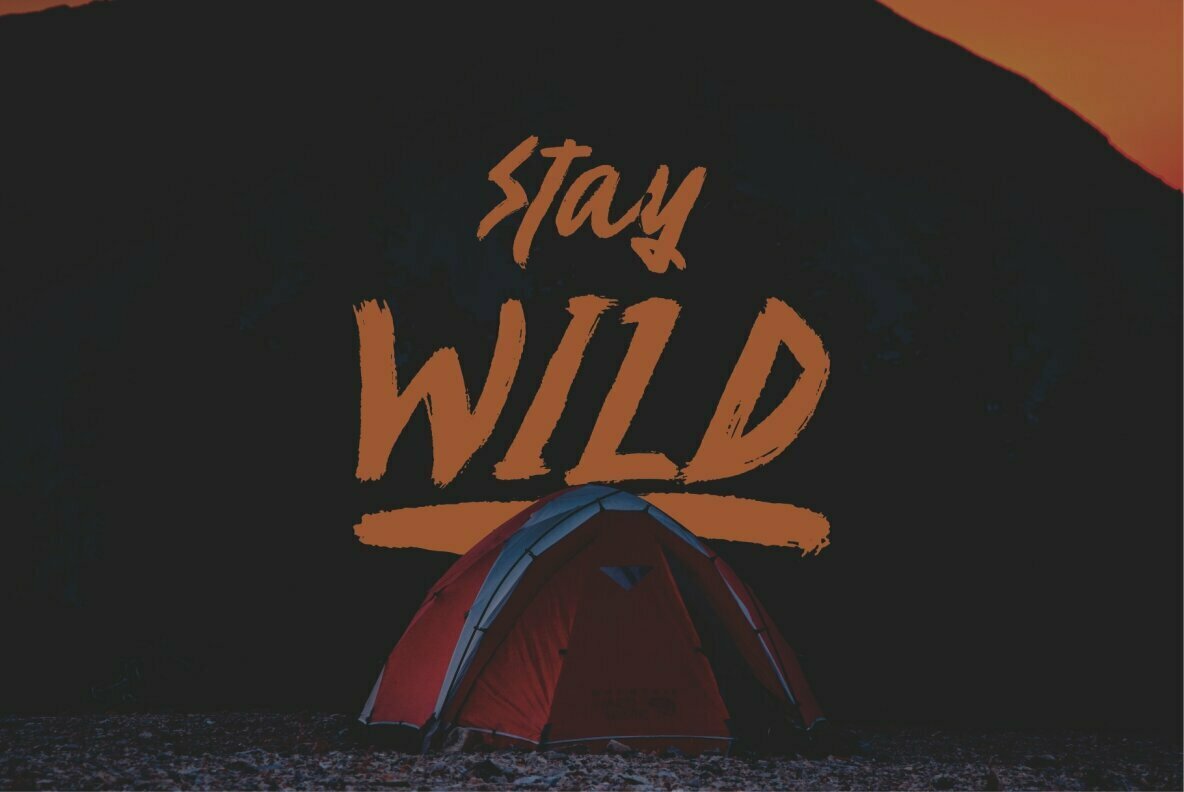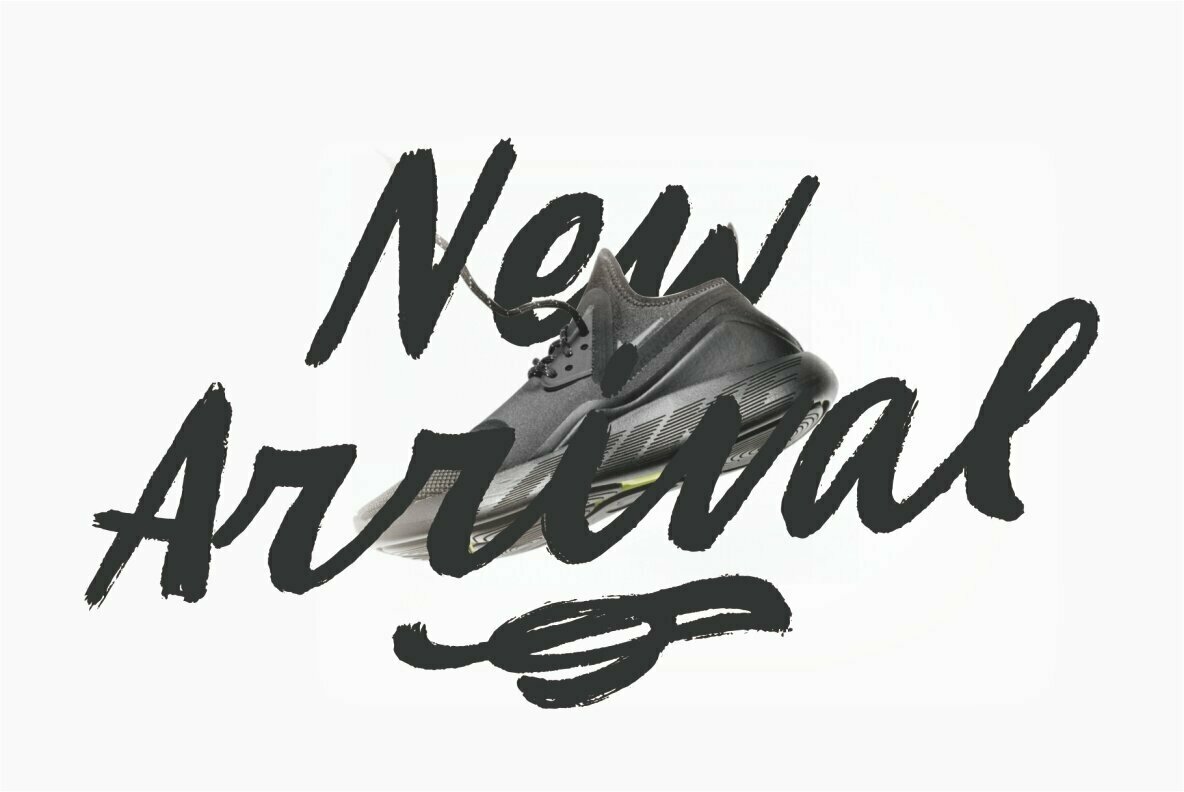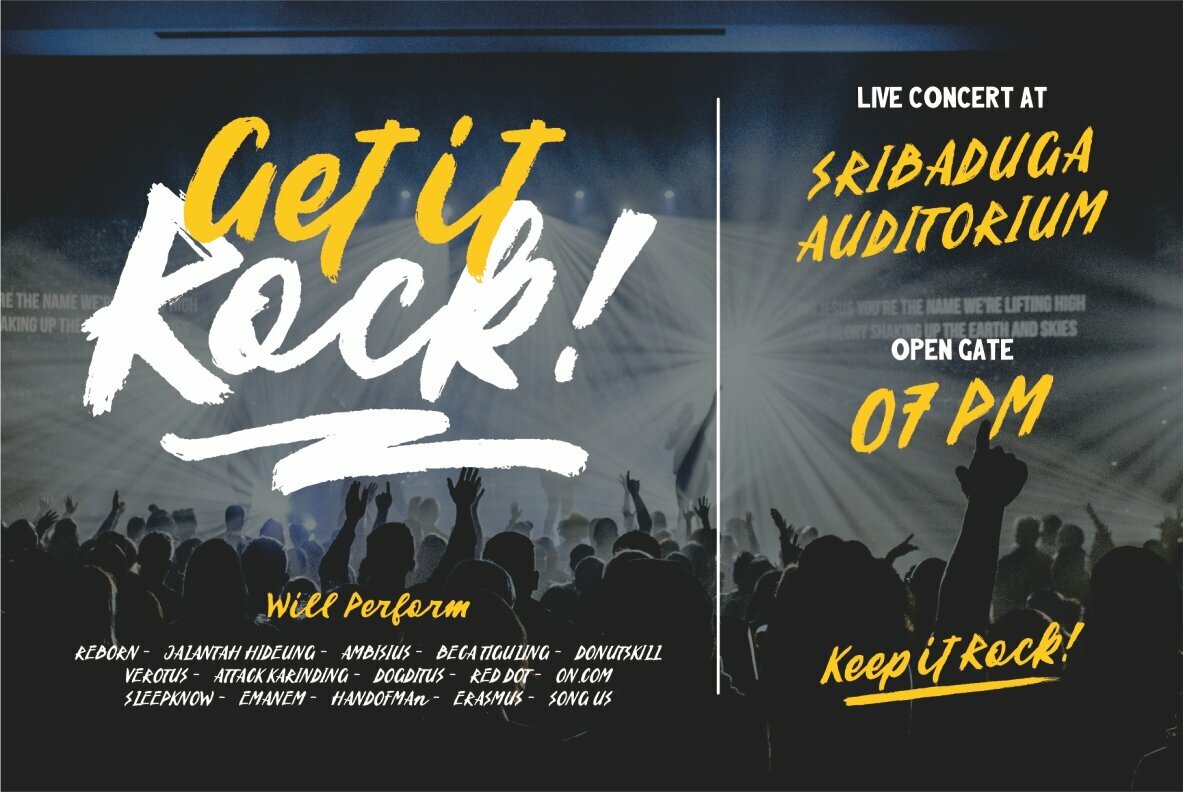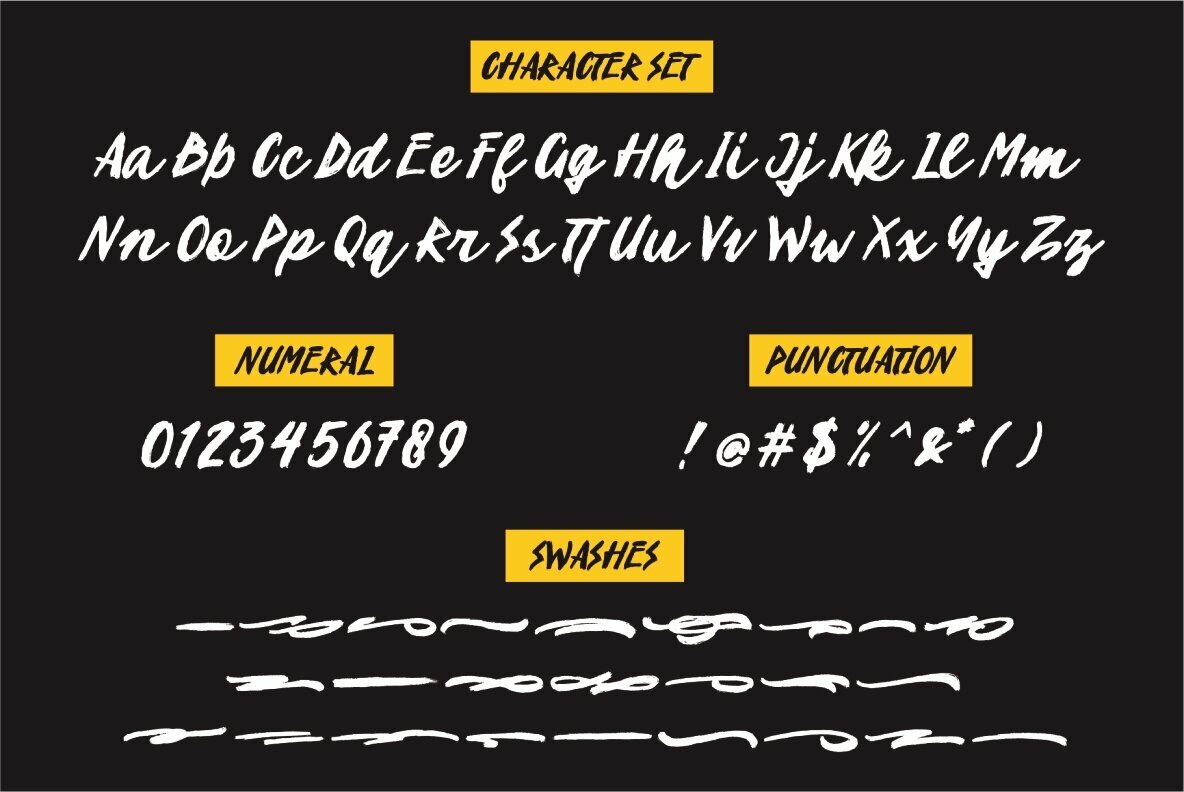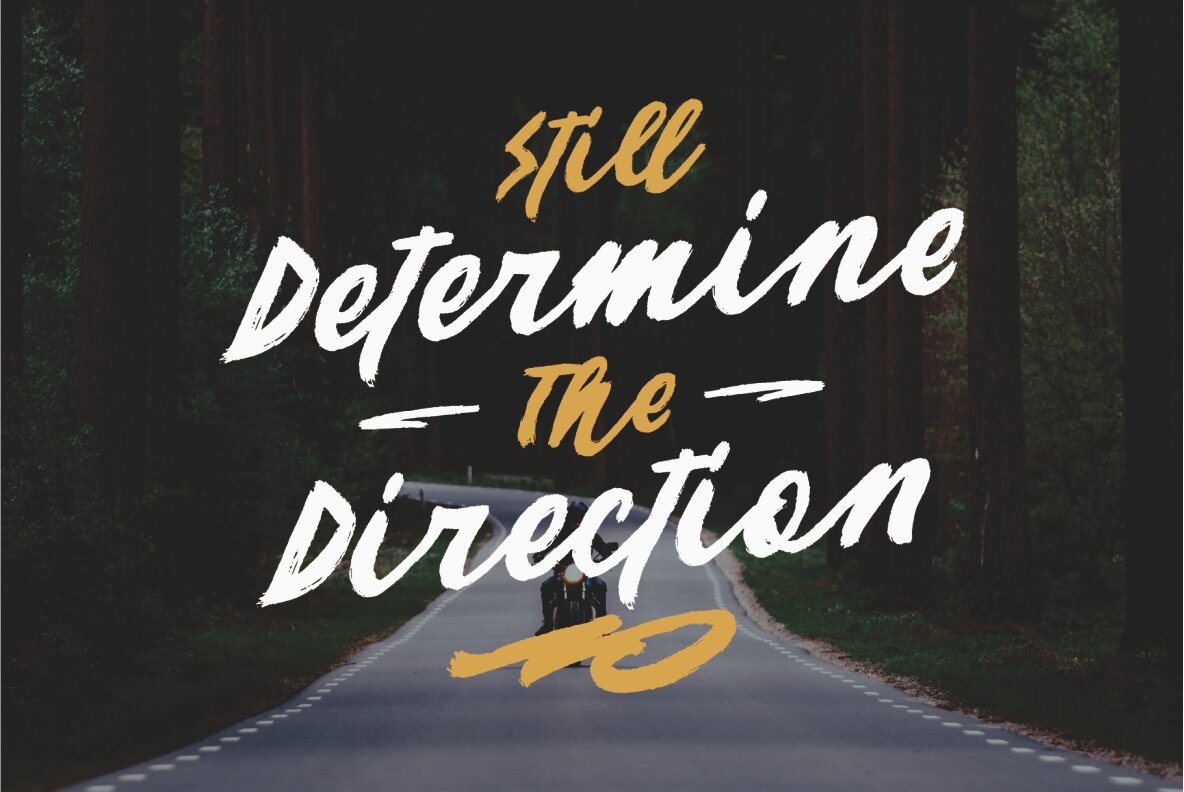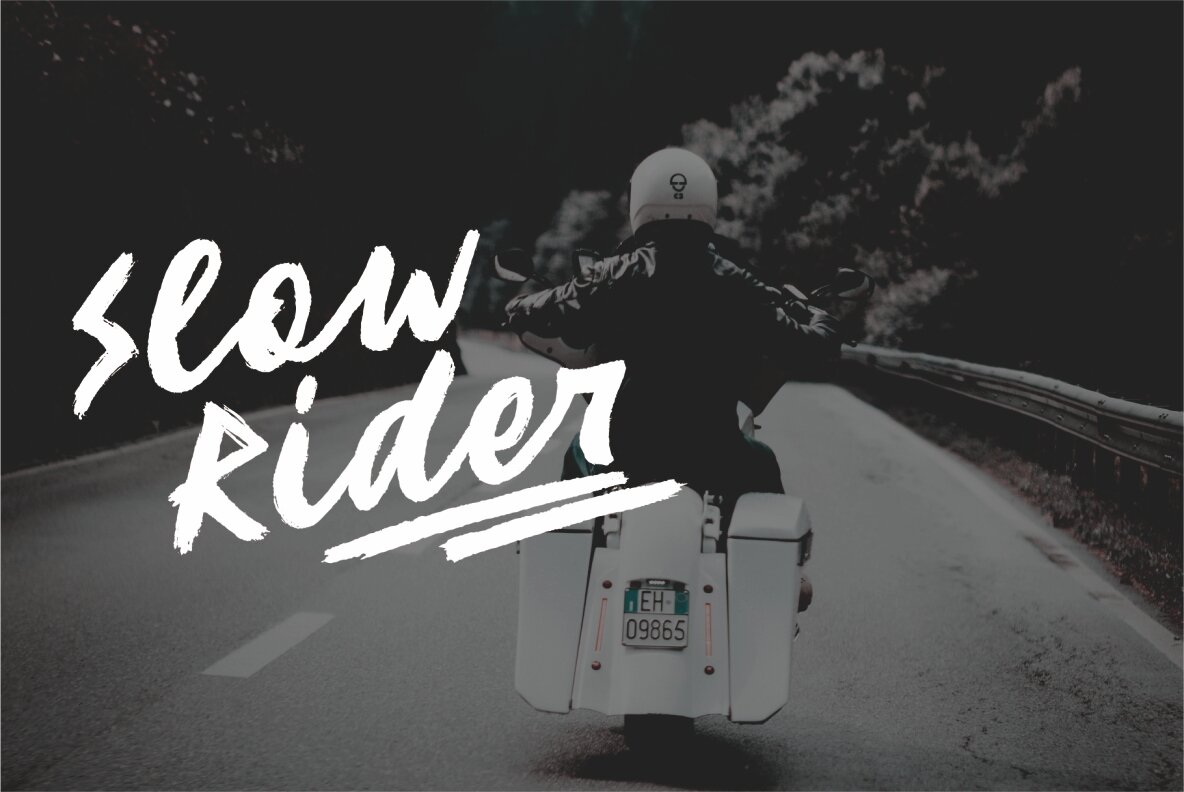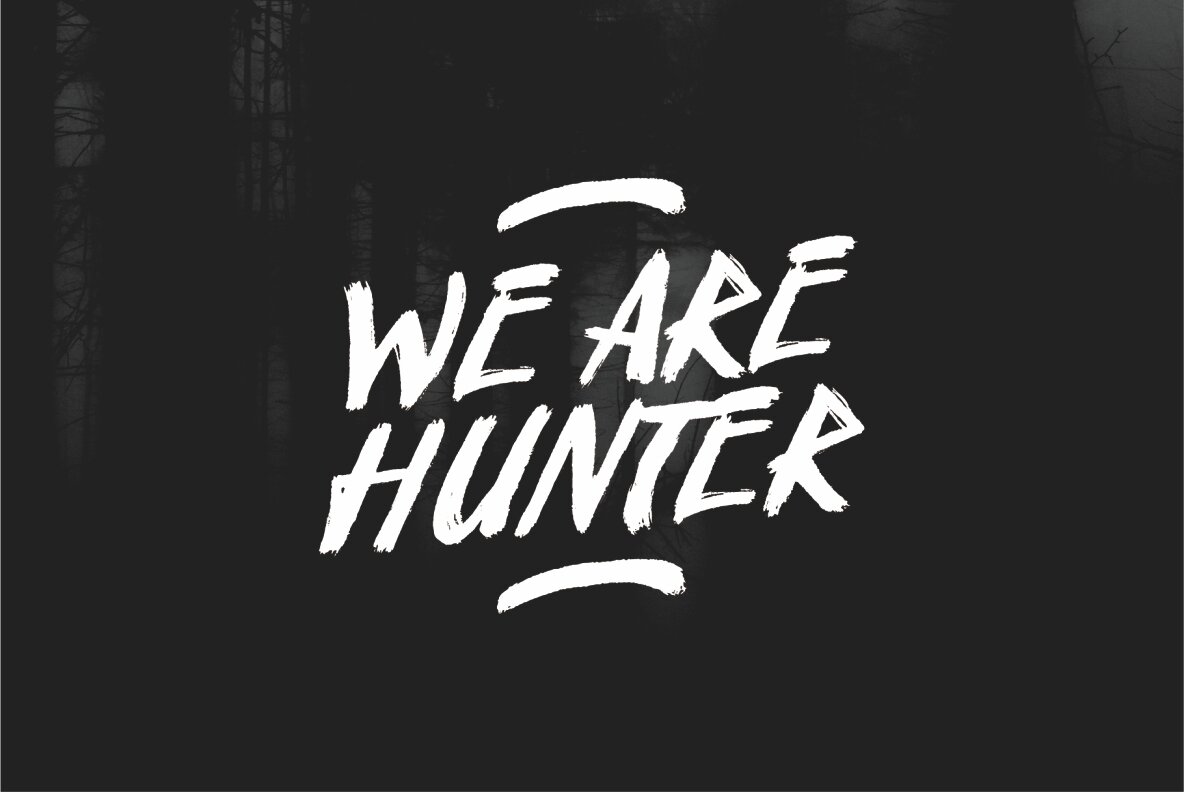
Venator Font
Venator offers a compelling blend of attractive curves and a vibrant urban aesthetic. This stylish script breathes life into any project, from logo designs to product packaging. Ideal for bringing a tangible sense of personality to handwritten quotes and social media content.Venator: Urban Script with Dry Brush Style